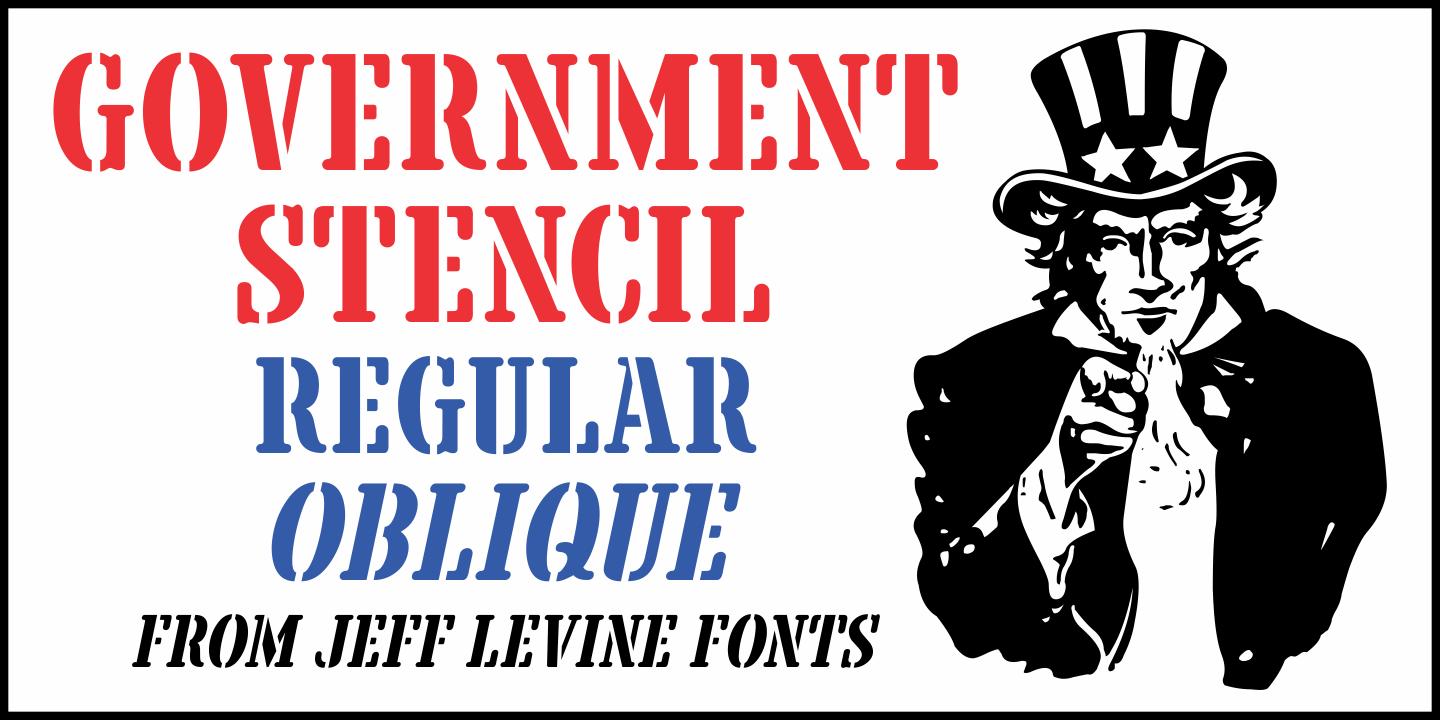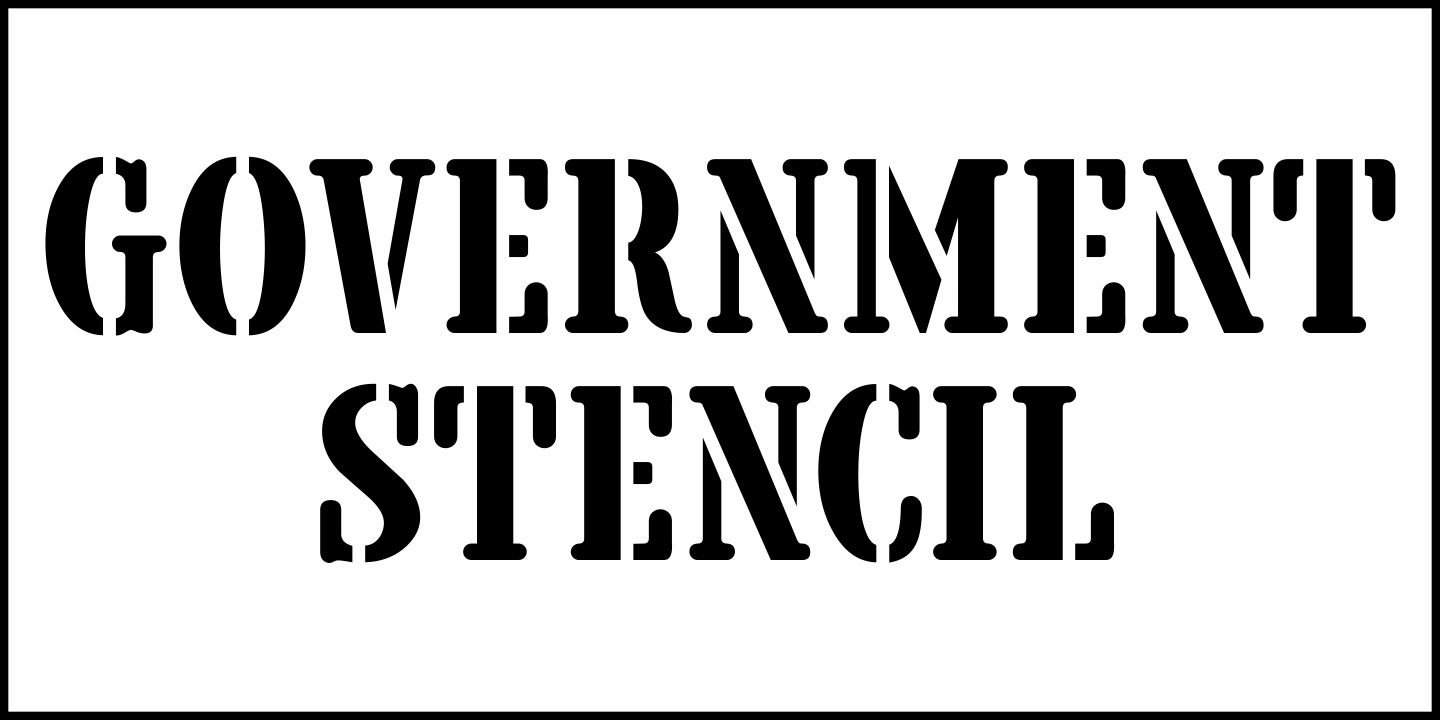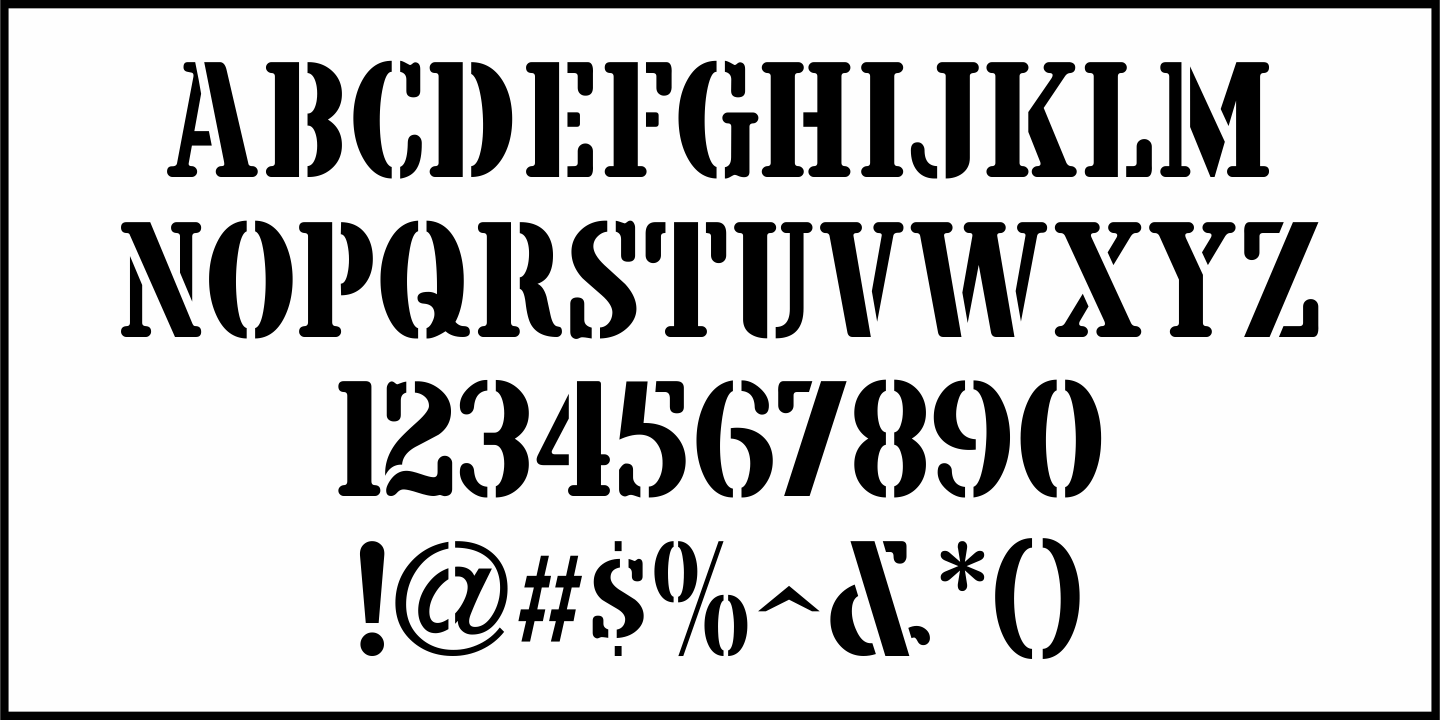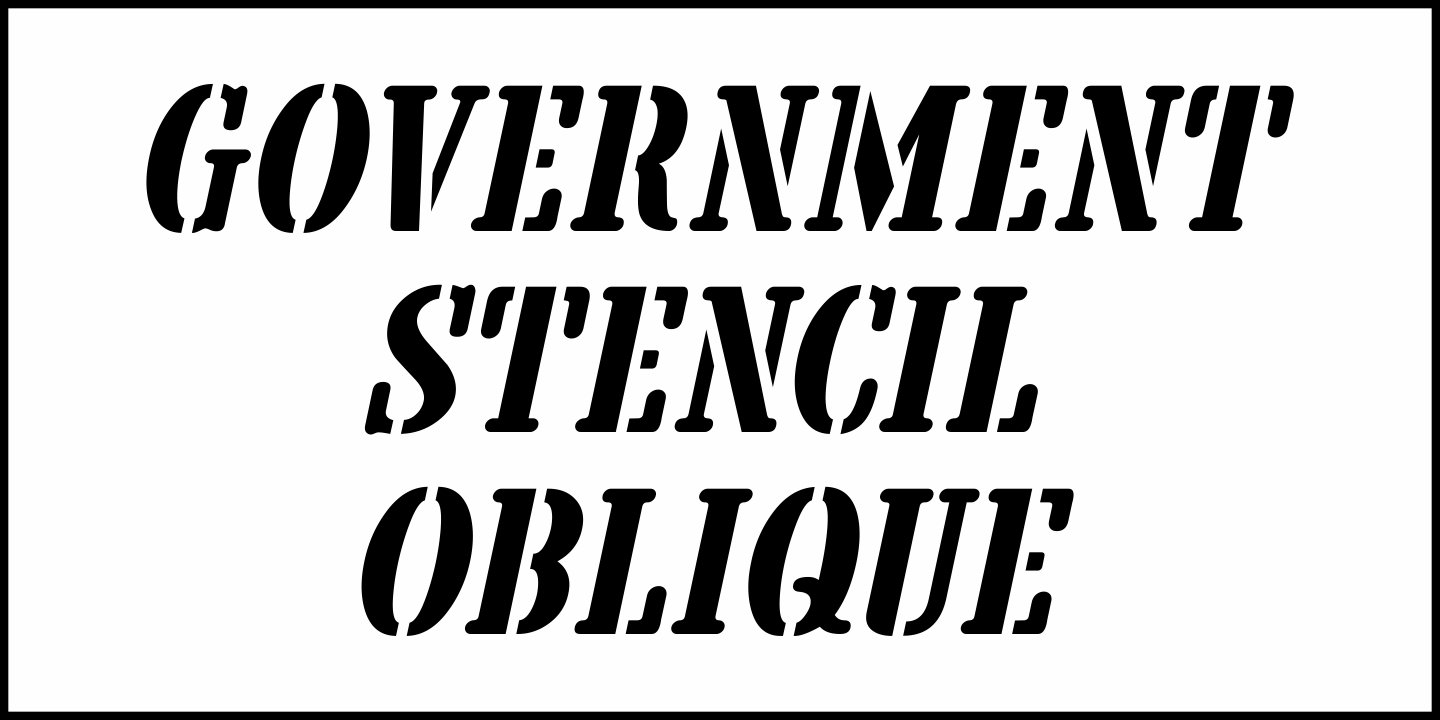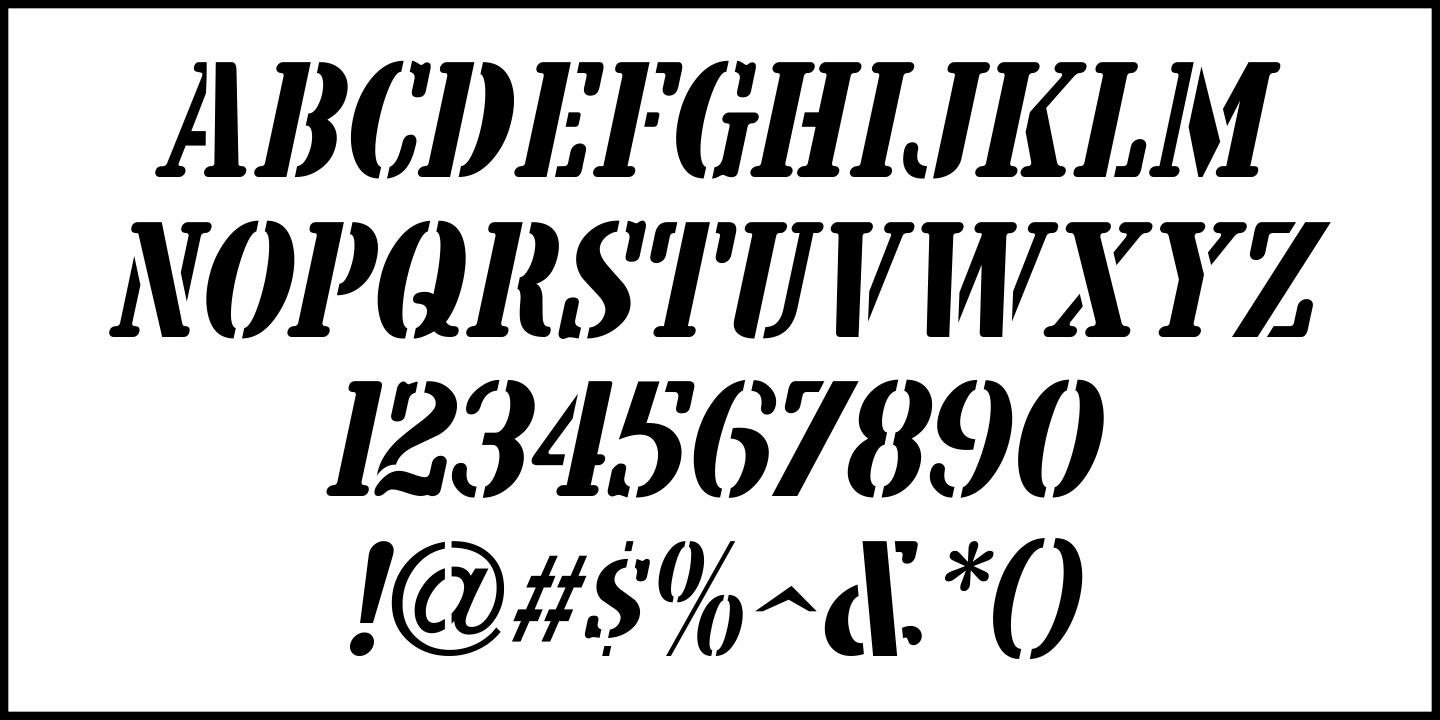
Government Stencil
A poster for the 1952 film 'Diplomatic Courier” featured the title hand lettered in a bold serif stencil design.
With some modifications, this served as the model for Government Stencil JNL, which is available in both regular and oblique versions.